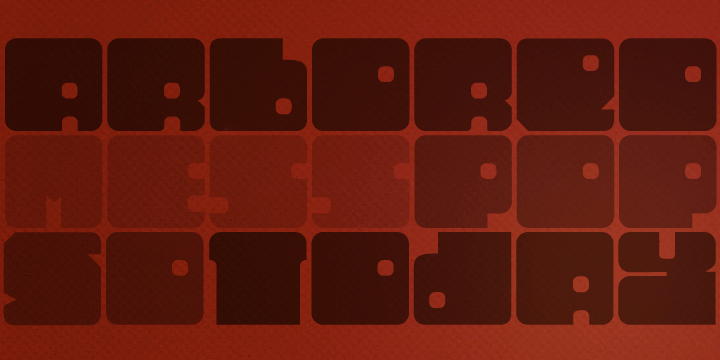
Tonal is a fat typeface, geometrical in its peculiar way. Available in three styles, it's a unicase alphabet and offers an alternative glyph for each letter, providing flexibility to your designs. Use it big!
Tonal